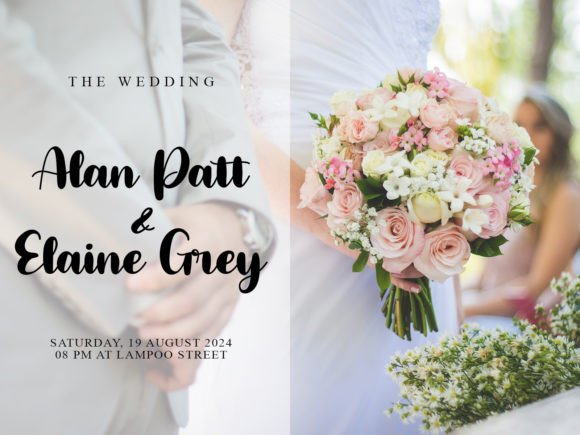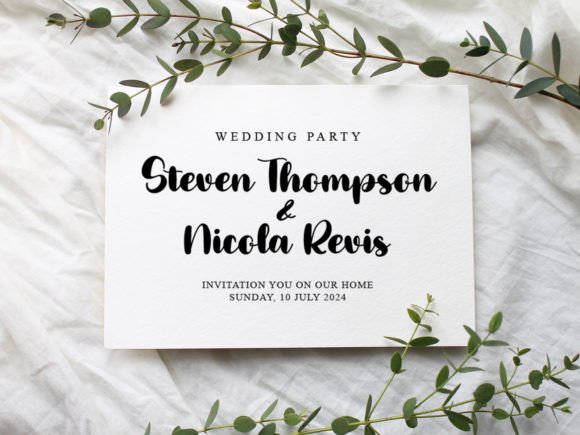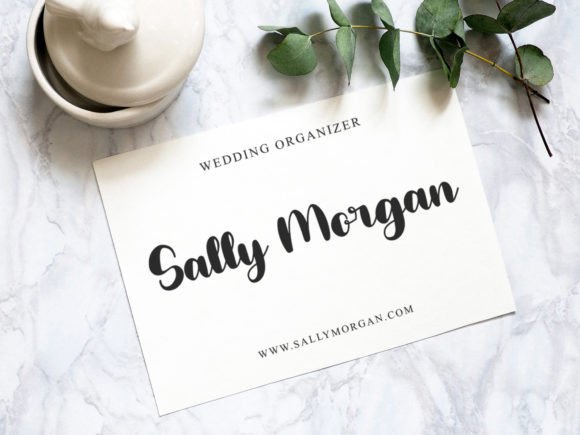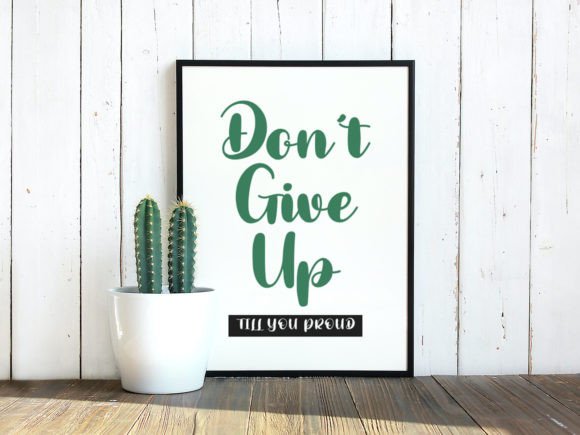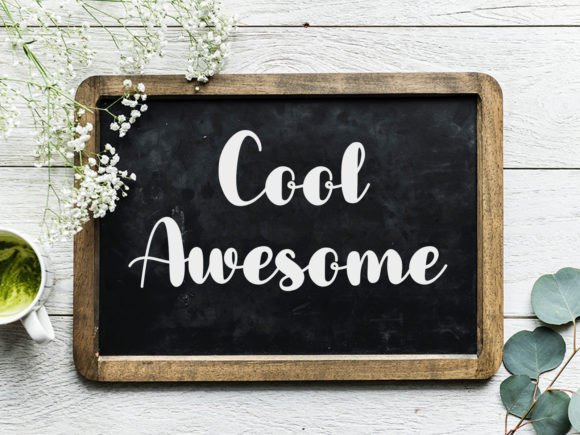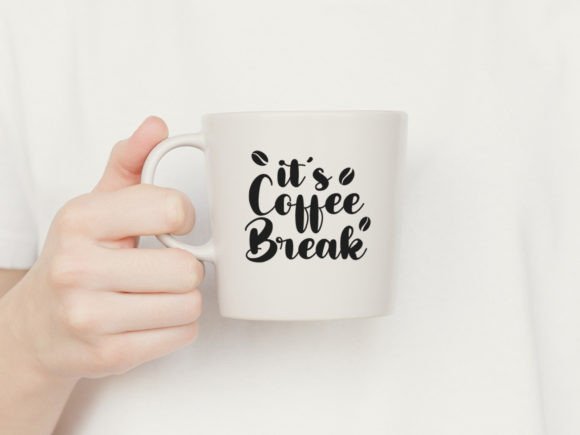
Unlock the Joy of Hand-Drawn Typography with Bubbly Orange Font
Remember that moment when you stumbled upon the perfect font that made your design pop? For many of us, it’s a moment of pure creative bliss. Whether you’re a seasoned graphic designer or a hobbyist, the right font can elevate your work and make it truly special. That’s where the Bubbly Orange Font comes in – a charming handwriting brush font that’s sure to bring a smile to your face.
With its bubbly touch and playful feel, this font is perfect for adding a personal touch to your designs. From Cricut projects to apparel design, quotes, and background art, the Bubbly Orange Font is an invaluable asset to any designer’s toolkit. Its versatility and charm make it a wonderful addition to any font library, guaranteed to enhance any creation.
Bubbly Orange Font Key Features
- Font Family: Bubbly Orange Font is a custom-designed font family, consisting of multiple weights and styles.
- Unique Characteristics: Features a playful, bubbly design with rounded edges and vibrant orange hue, making it ideal for creative and whimsical projects.
Bubbly Orange Font Review
Overall, I think the “Bubbly Orange Font” has a certain charm to it ✨. The playful, cursive design makes it perfect for creating a whimsical and fun atmosphere in any project. The font is quite versatile and can be used in various contexts, from social media graphics to children’s book illustrations.
- ✨ Unique design that stands out from more traditional fonts
- ✨ Highly customizable with a range of color options and sizes
- ✨ Perfect for creating a playful and attention-grabbing look
However, I do have a few reservations about the font’s limitations ⚠️. Firstly, it can be quite difficult to read in smaller sizes, which may make it less suitable for body text or lengthy passages. Additionally, the font’s playful nature may not be suitable for all types of projects, such as formal documents or corporate branding.
The “Bubbly Orange Font” is a great choice for designers who want to add a touch of fun and whimsy to their projects. While it may have its limitations, the font’s unique design and versatility make it a valuable addition to any designer’s toolkit.
Tips for Getting the Most Out of Bubbly Orange Font
For optimal results, use Bubbly Orange Font in combination with other playful and creative elements, such as bold colors and fun illustrations. This font is particularly well-suited for children’s products, party invitations, and social media posts.
Bubbly Orange Font is commonly used in the following contexts:
– Children’s products (e.g., toys, games, etc.)
– Party invitations and decorations
– Social media posts and online advertising
– Educational materials and worksheets